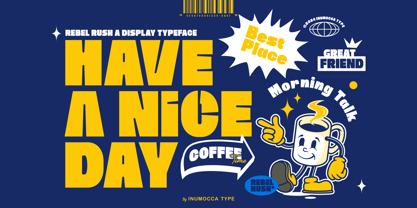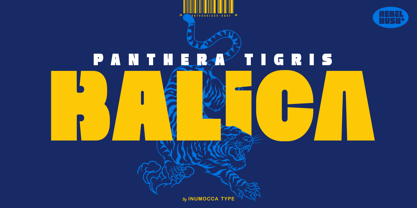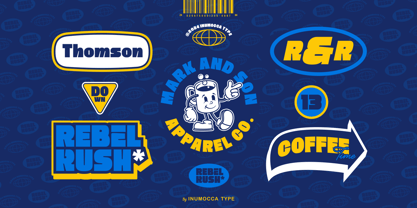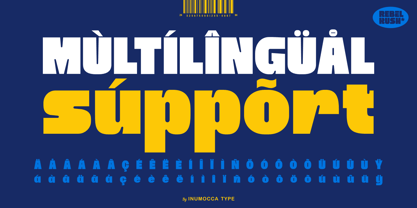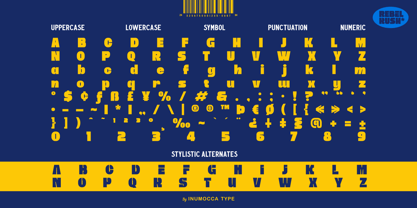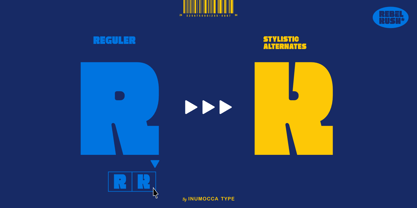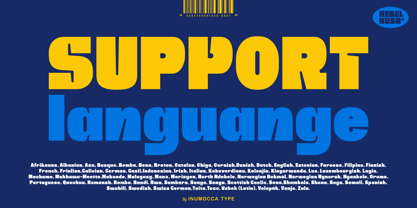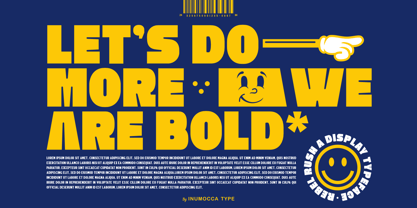
Rebel Rush
von Inumocca
Die Schriftfamilie Rebel Rush wurde von Inu Mocca entworfen und von Inumocca veröffentlicht. Rebel Rush enthält 1 Stile.
Rebel Rush is A Display typeface, Bold and Fresh style
Retro and modern taste, Eyecatching and powerfull.
Really playful typeface to covering your Project,
like Lettering, Website Interface, Magazine, Branding, Poster, wedding invitations,
Quotes Lettering, Logos, and more your project design.
- Unique glyphs
- Multilingual Characters
- UPPERCASE
- Lowercase
- Numeric
- Symbol
- Punctuation Character
- PUA encoded
- Stylistic Alternates (ss01)